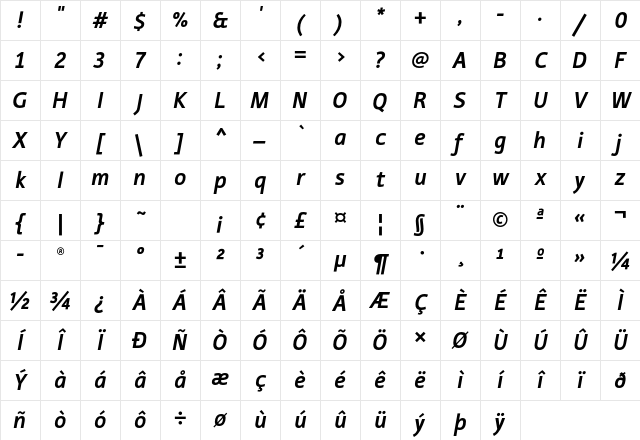
Tabula ITC Std Bold Italic
Designer: Julien Janiszewski
Design Context for Tabula ITC Std
Tabula ITC Std is a composed and adaptable typeface that performs quietly and consistently across a wide range of design contexts. The slanted form adds forward momentum and visual energy. Its bold stroke weight gives it real presence on the page.
Pro Tip: Use Tabula ITC Std for emphasis, pull quotes, and subheadings where its slanted energy can add rhythm to the layout.